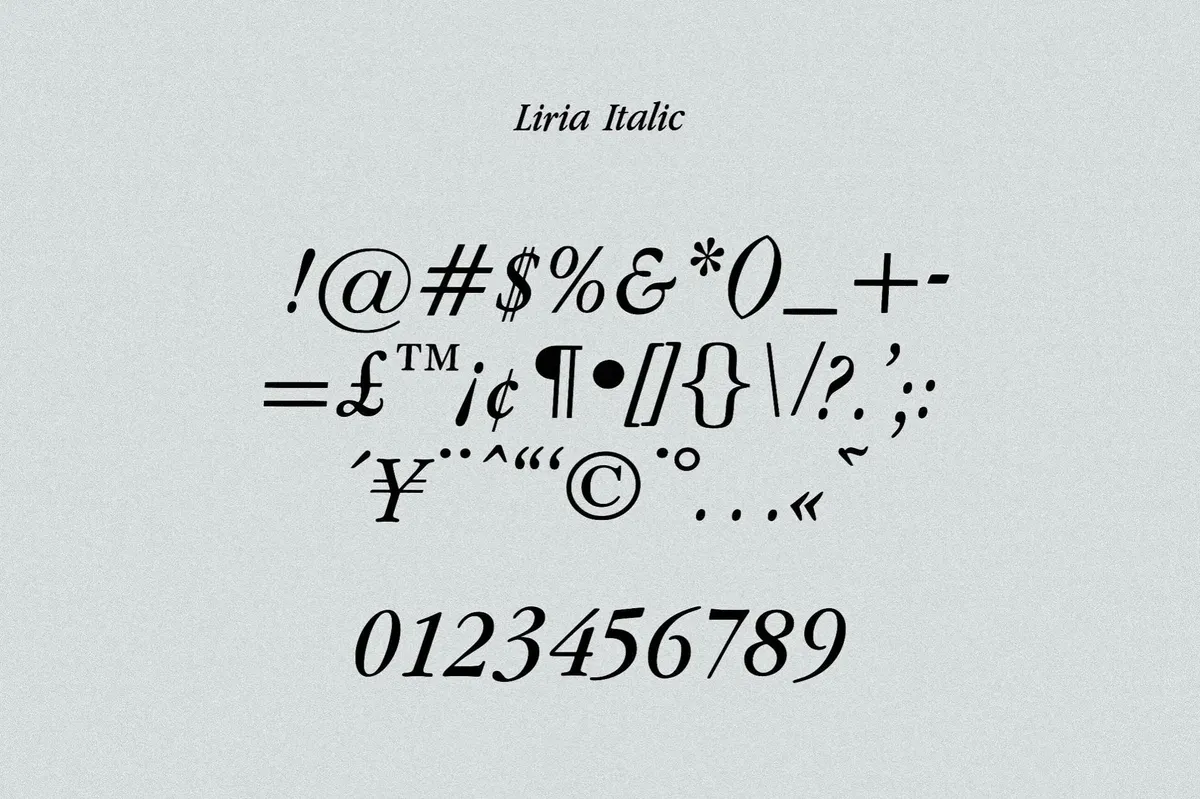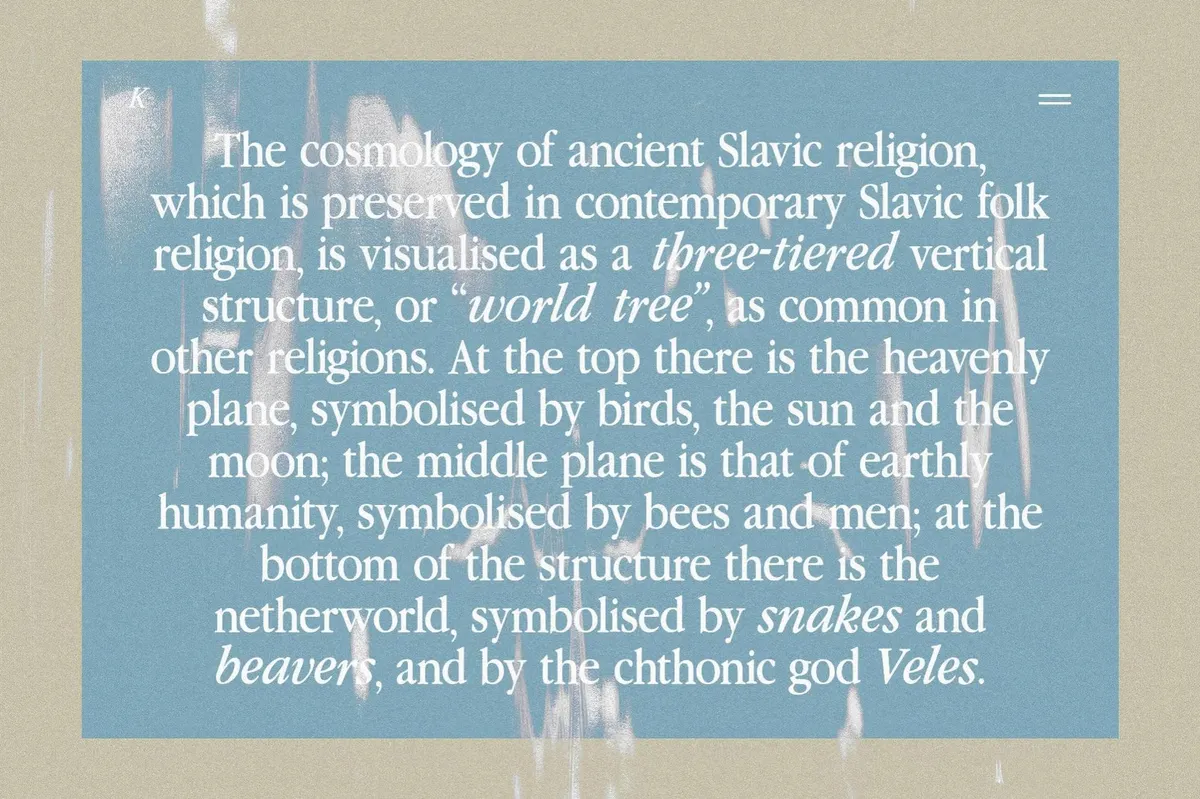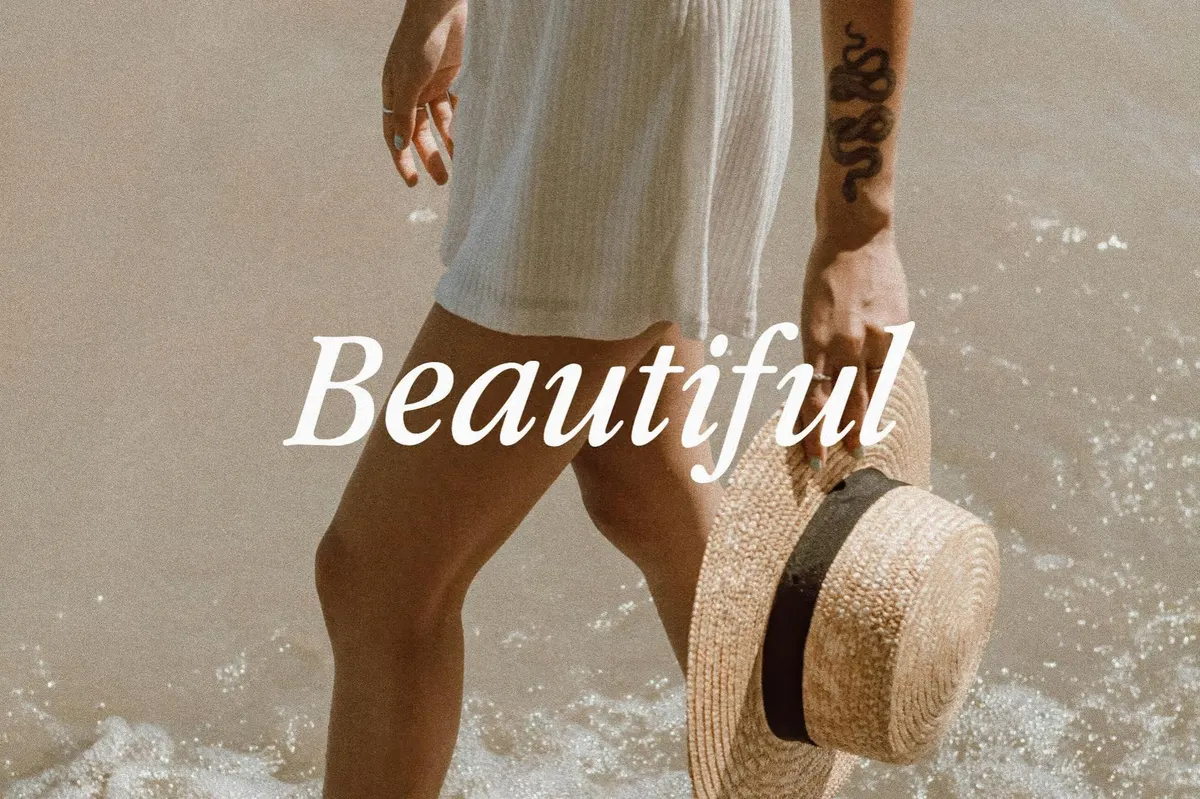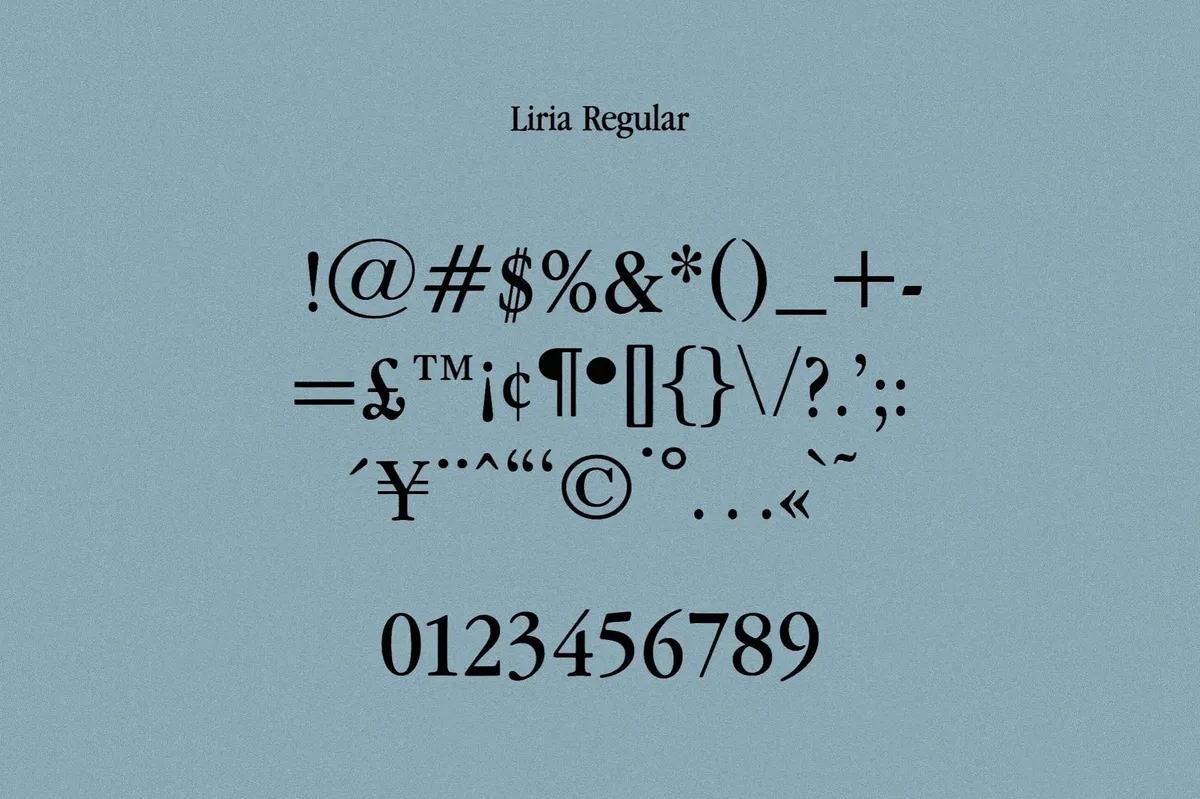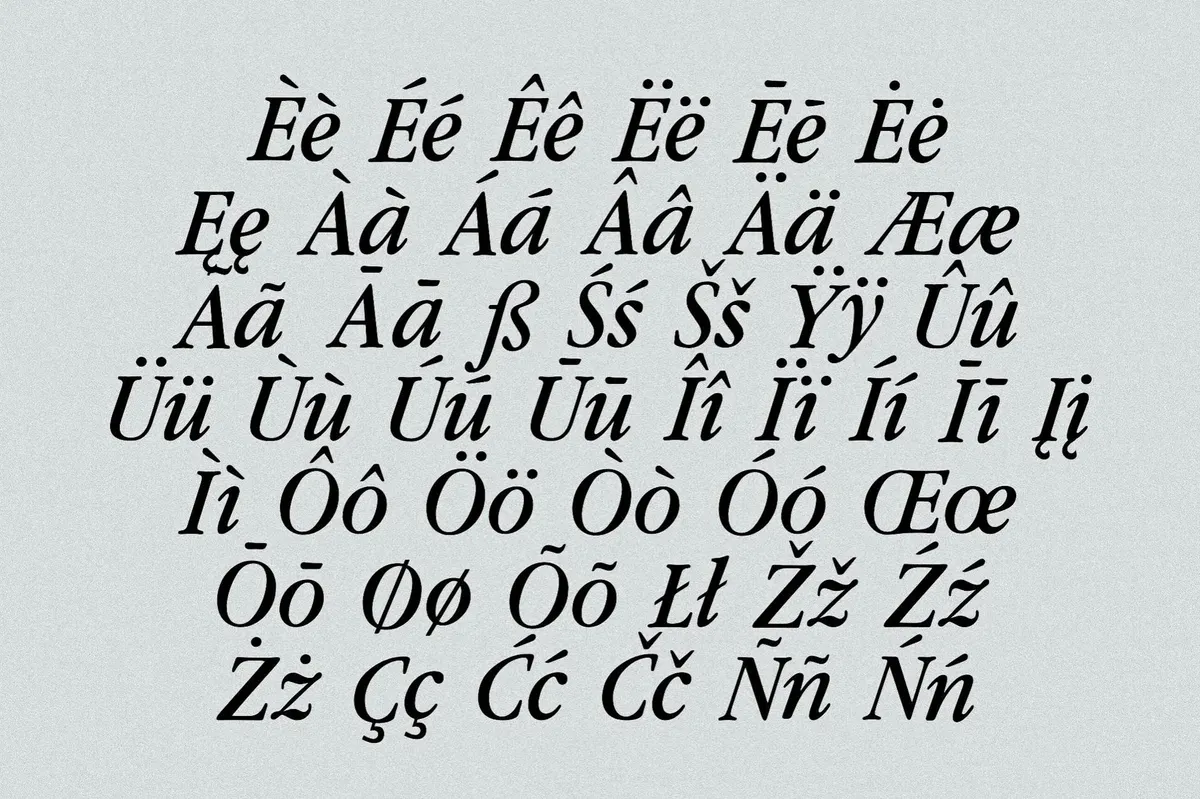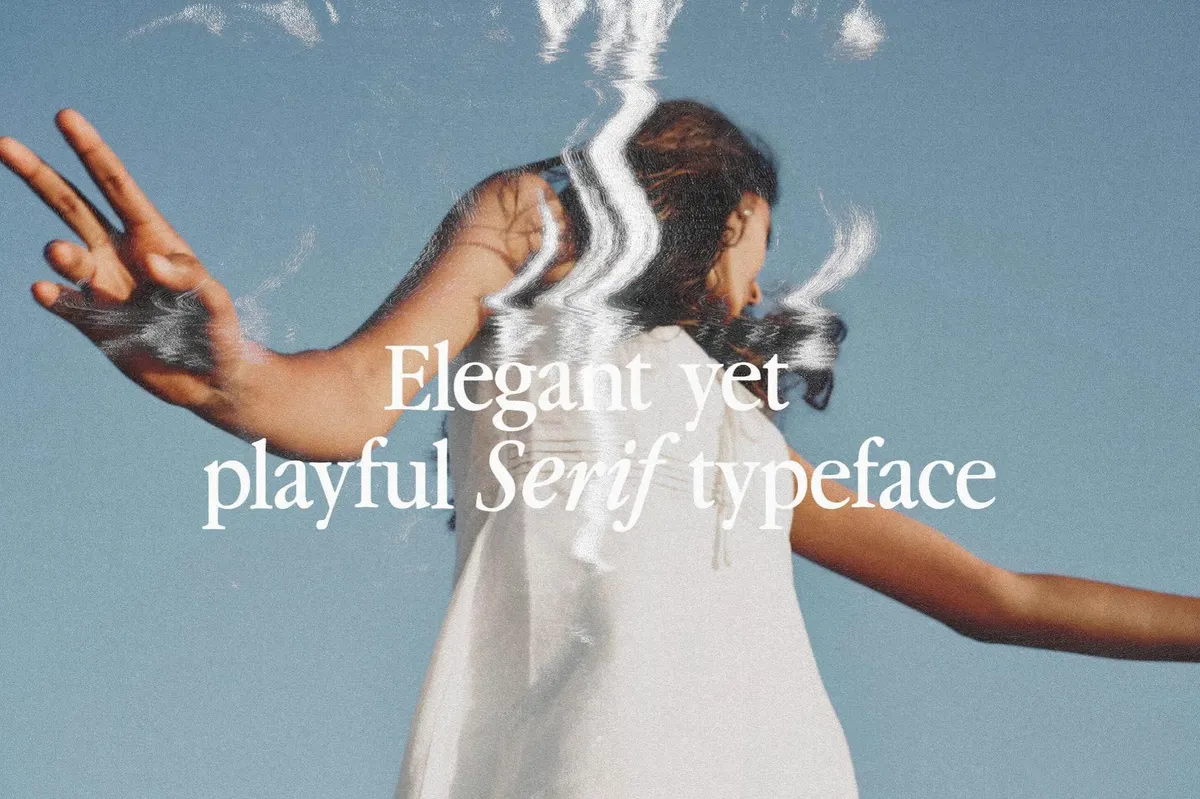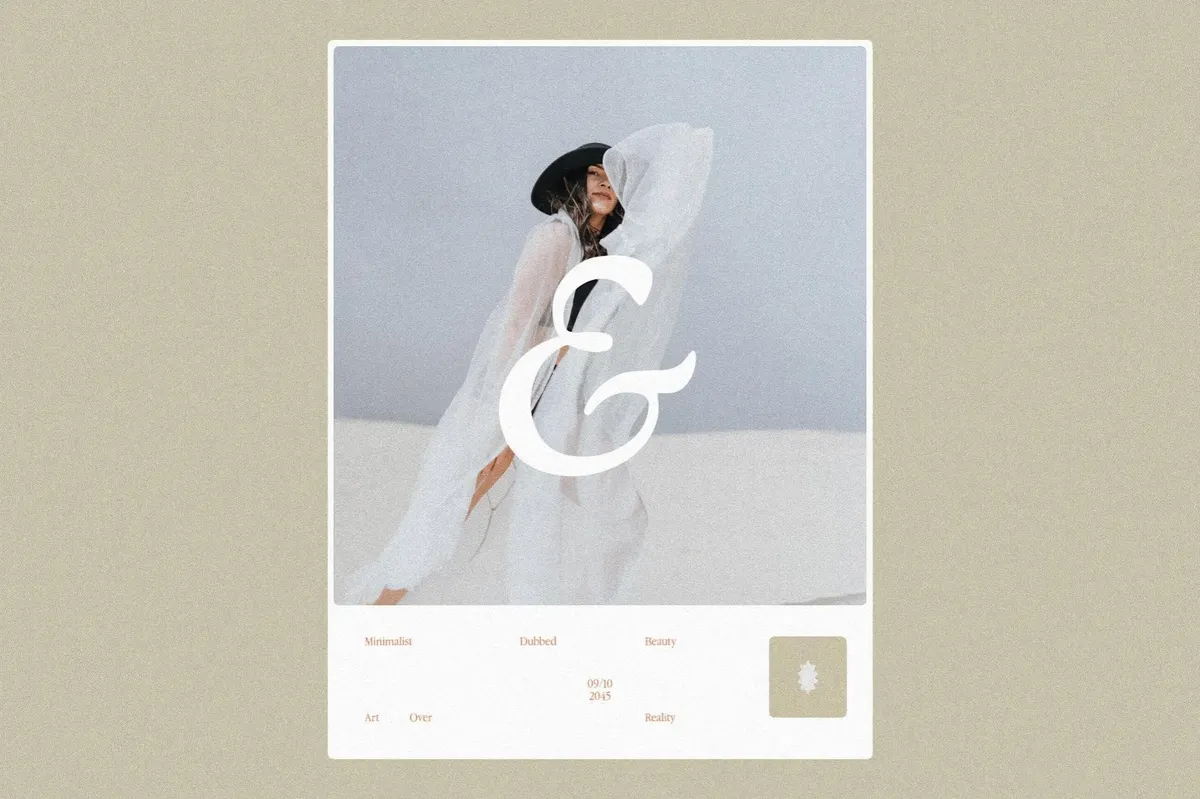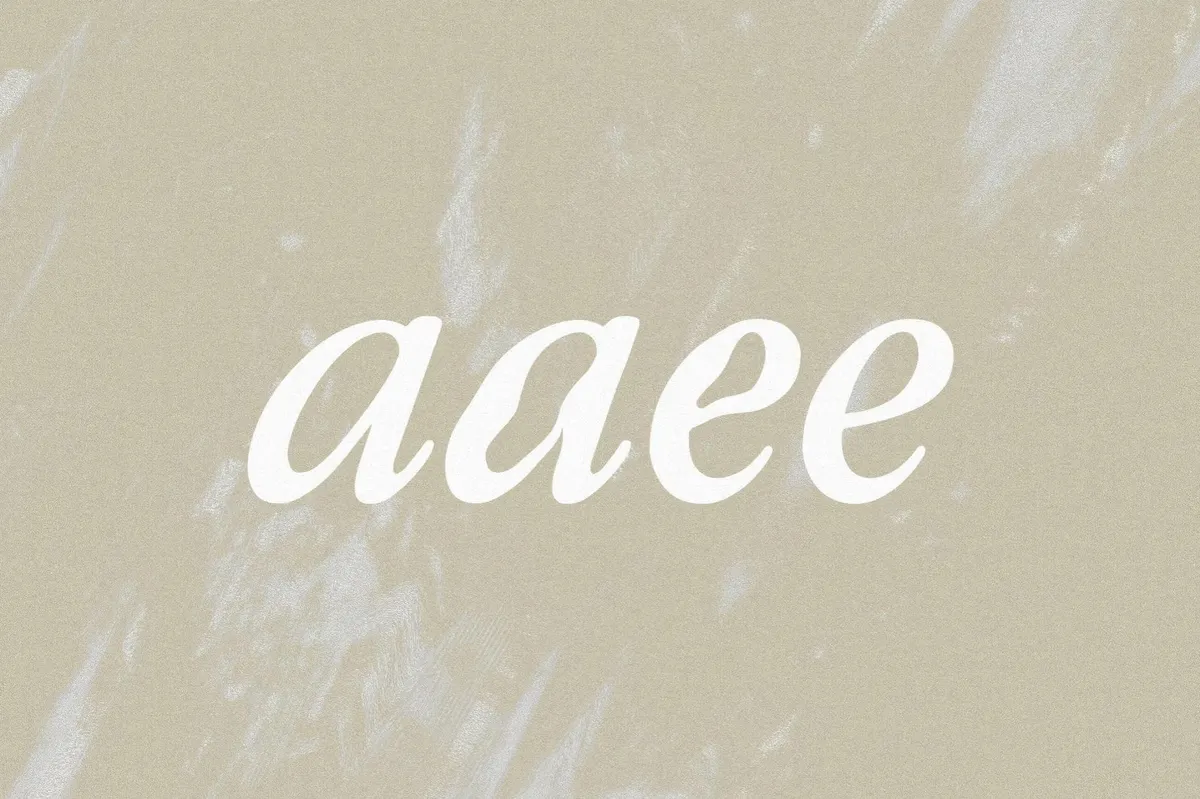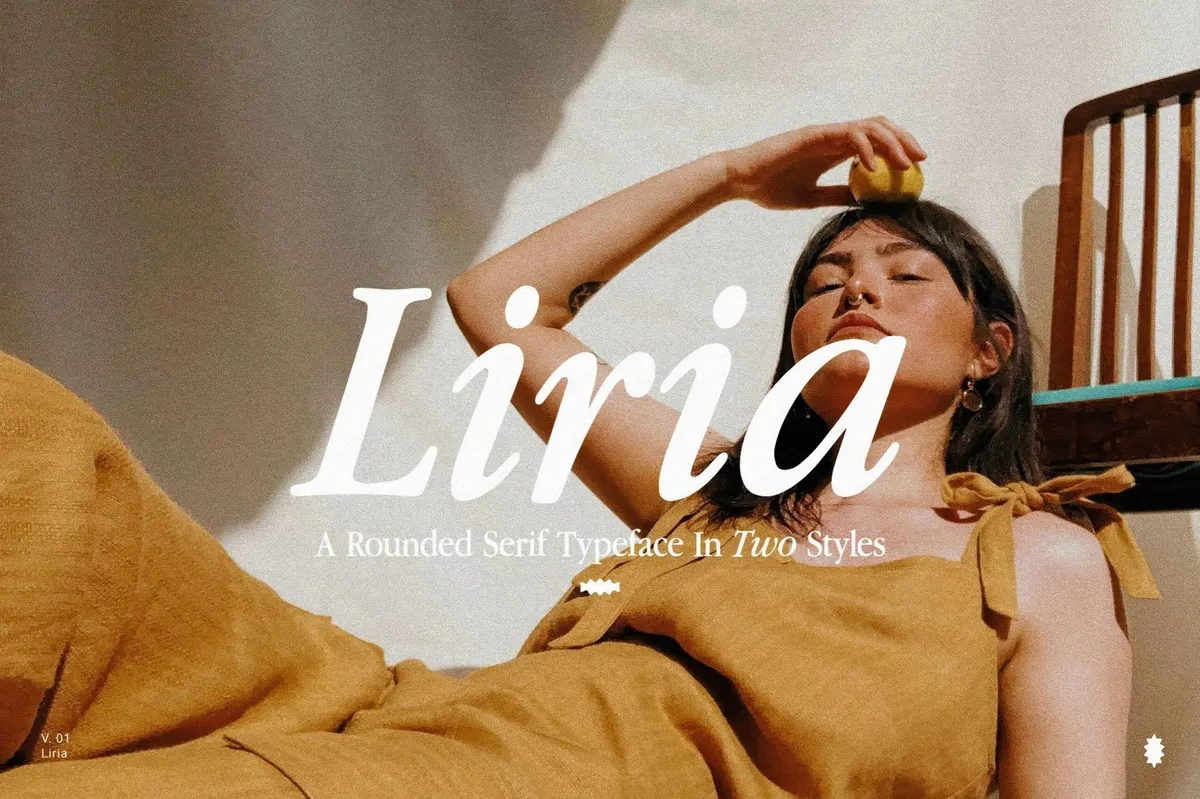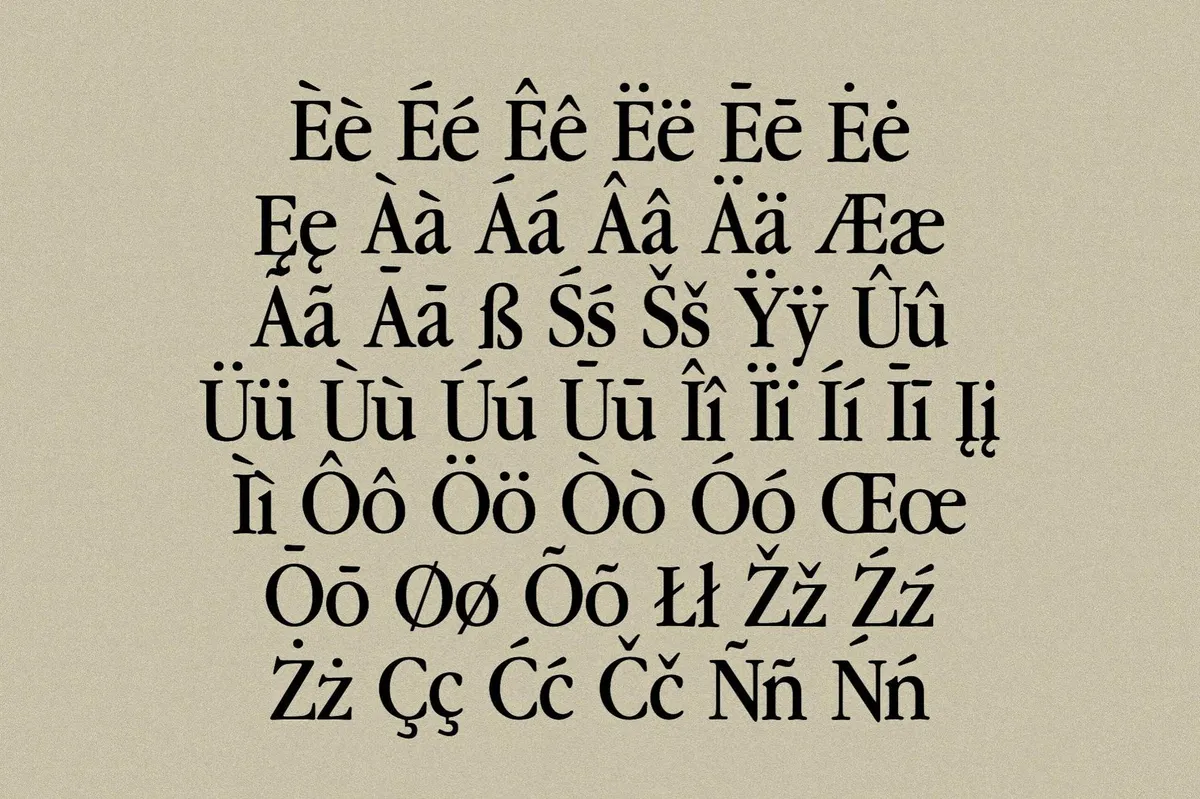
Liria Serif Typeface
Liria is the kind of typeface that could’ve headlined your favorite ’90s magazine or rolled across the screen of an indie coming-of-age film. Its soft, rounded serifs and warm, laid-back rhythm bring back the sun-drenched pages, VHS box art, and handwritten mixtape covers. There’s a hint of rebellion under its polish — a quiet cool that knows when to whisper and when to stand out.
Available in Regular and Italic styles, Liria includes uppercase, lowercase, numerals, punctuation, and multilingual support. It’s designed for everything from fashion editorials and nostalgic branding to playlist covers and lifestyle blogs.